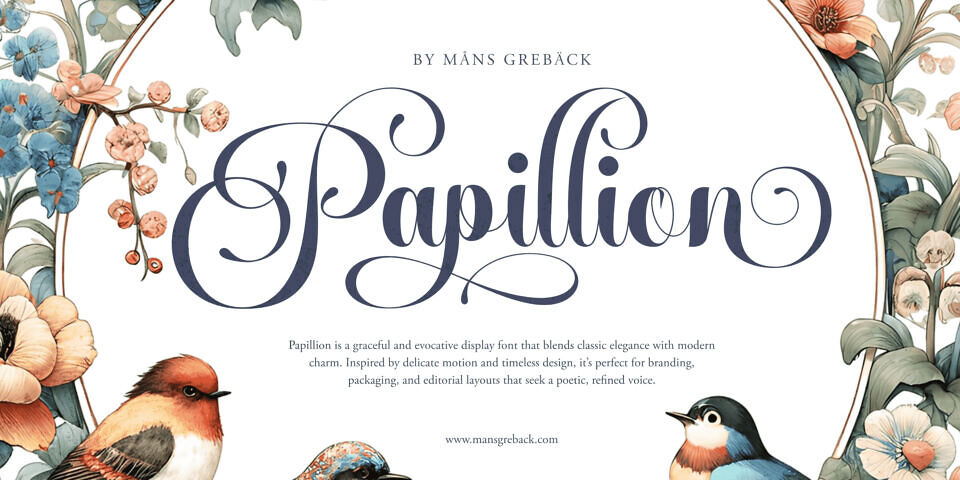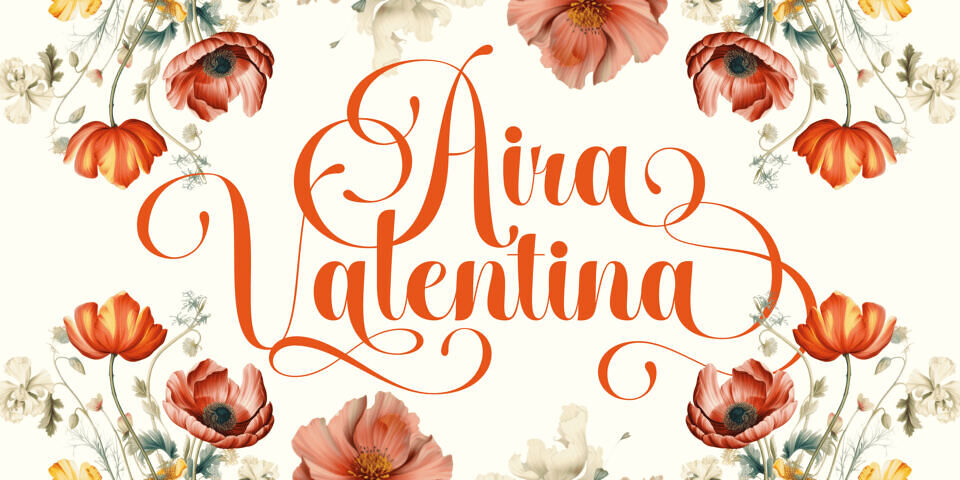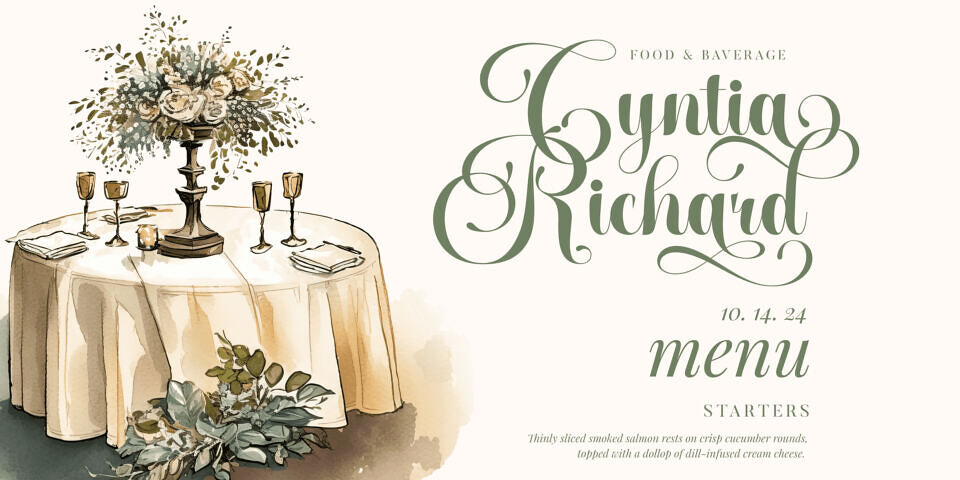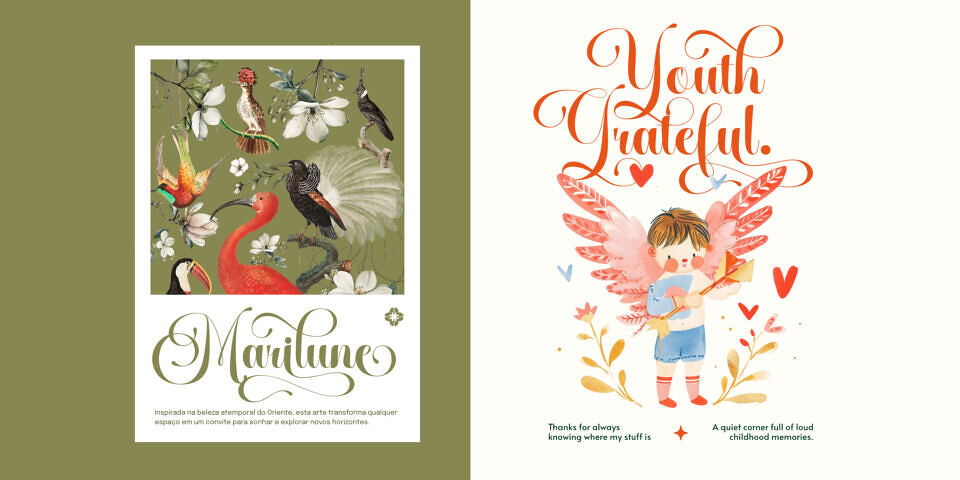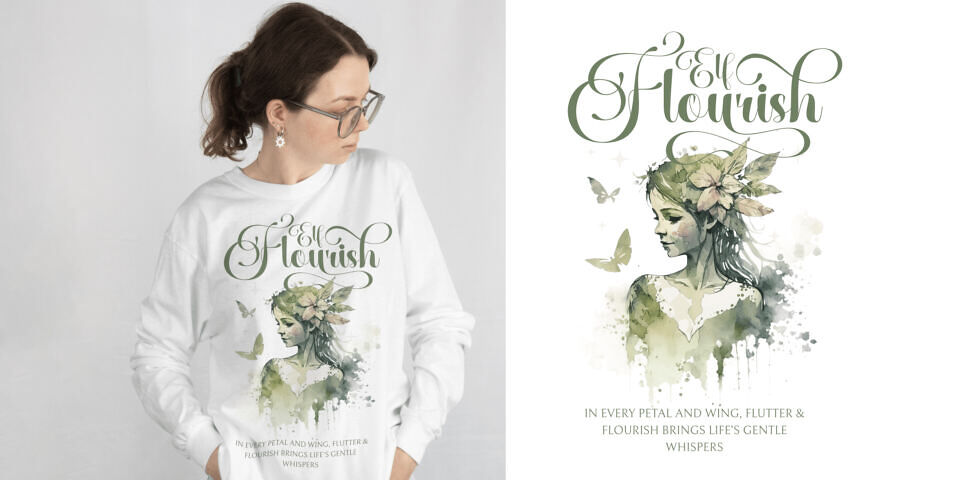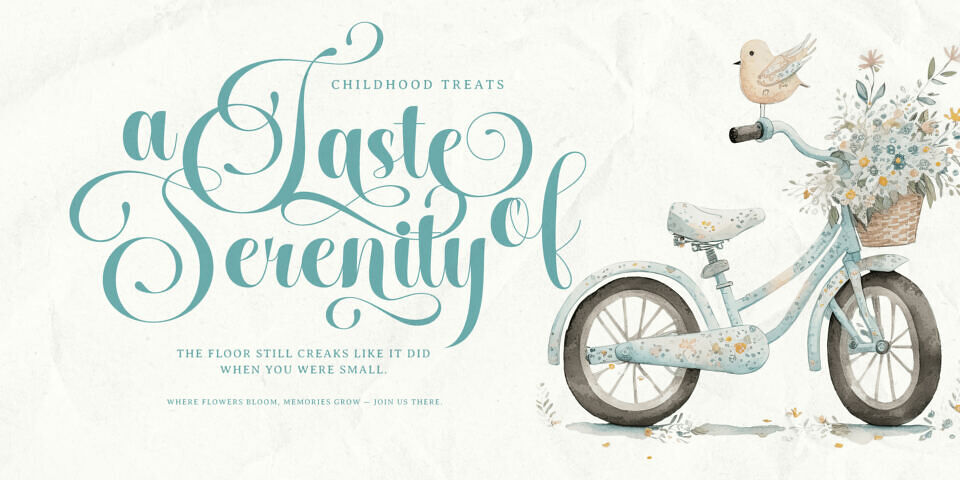
Papillion is an elegant and ornamental script, infused with the spirit of French sophistication and theatrical flair. With its refined curves and decorative loops, it evokes the flutter of butterfly wings in motion, balancing formal structure with expressive movement.
The uppercase letters stand tall and majestic, wrapped in flourishing swirls that dance along the baseline. Meanwhile, the lowercase maintains a cleaner, more flowing form—perfect for graceful continuity in longer texts. Together, they create a contrast that is both luxurious and lyrical.